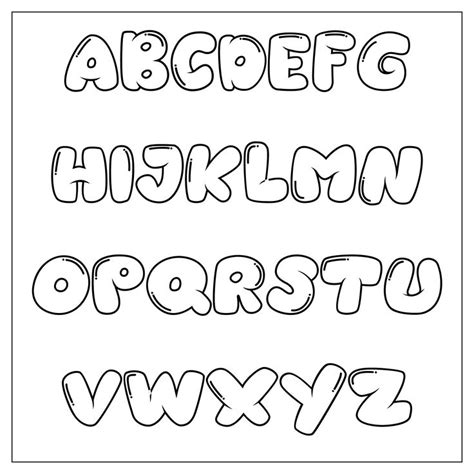
Bubble Letter Stencil Font: Free Downloadable Templates
Readers, have you ever wanted to add a playful and eye-catching touch to your projects, signs, or crafts? Do you find yourself drawn to the whimsical charm of bubble letters? If so, you're in for a treat! In this comprehensive guide, we'll delve into the world of bubble letter stencil fonts, exploring their history, benefits, and how to find the perfect free downloadable templates to elevate your creative endeavors.
Bubble letter stencil fonts are a fun and versatile way to inject personality into your projects. They offer a unique visual appeal that can transform ordinary designs into eye-catching masterpieces. Whether you're creating birthday banners, party decorations, or personalized gifts, these stencils can bring your ideas to life with an added touch of whimsy.
I've spent countless hours researching and analyzing the best bubble letter stencil fonts available online. This guide will equip you with the knowledge and resources you need to find the perfect fonts to suit your style and project needs. Get ready to unlock a world of creative possibilities!
Understanding Bubble Letter Stencil Fonts
The History of Bubble Letters
Bubble letters, also known as "balloon letters," have a rich history dating back to the early days of graffiti art. Their origins can be traced to the vibrant street art scene of the 1970s, where artists sought ways to create bold and eye-catching lettering styles. The rounded, inflated appearance of bubble letters gave them a distinctive and playful feel, making them instantly recognizable.
Over time, bubble letters gained popularity beyond street art and became a staple in graphic design, typography, and various forms of visual expression. Their versatility and ability to convey a sense of fun made them suitable for a wide range of applications, from children's books to product packaging.
The Appeal of Bubble Letter Stencil Fonts
Bubble letter stencil fonts offer a unique blend of visual appeal and practicality. Their rounded, inflated shapes create a sense of fun and playfulness, making them perfect for projects that aim to capture a joyful and whimsical vibe. They can add a touch of personality and charm to any design, making them a popular choice for birthday cards, party invitations, and other celebratory occasions.
Furthermore, bubble letter stencil fonts are particularly useful for crafting and DIY projects. The stencils provide a precise template for cutting out letters from various materials, making it easy to create professional-looking lettering without the need for artistic skills. This makes them an excellent option for projects like personalized signs, custom t-shirts, and home decor.
Types of Bubble Letter Stencil Fonts
The world of bubble letter stencil fonts is diverse and offers a wide array of styles to suit different tastes and project needs. Some popular variations include:
- Classic Bubble Letters: These are the traditional rounded letters with a distinct inflated appearance.
- Modern Bubble Letters: These offer a contemporary twist on the classic style, often incorporating sharp angles or unique embellishments.
- 3D Bubble Letters: These create a sense of depth with their layered appearance, adding a dimension of visual interest.
- Outlined Bubble Letters: These feature a thin outline around the letters, creating a more defined and polished look.
Finding Free Downloadable Bubble Letter Stencil Fonts
With so many options available, finding the perfect bubble letter stencil font can seem daunting. Luckily, there are numerous online resources that offer a wide selection of free downloadable templates. Here's a guide to some of the best places to start your search:
Free Font Websites
Numerous websites specialize in offering free fonts for personal and commercial use. These platforms are a treasure trove of creative resources, including a multitude of bubble letter stencil fonts. Some popular free font websites include:
- Google Fonts: A comprehensive library of free fonts, including a selection of bubble letter stencils.
- Font Squirrel: A curated collection of free fonts, with a focus on high-quality and commercially usable options.
- Dafont: An expansive database of fonts, featuring a wide array of bubble letter stencils in various styles.
- 1001 Free Fonts: A vast repository of free fonts, including a dedicated section for bubble letter stencils.
Creative Market
Creative Market is a popular platform for designers and artists seeking premium creative assets. While many of their resources are paid, they also offer a free section that includes a selection of free fonts, including bubble letter stencils.